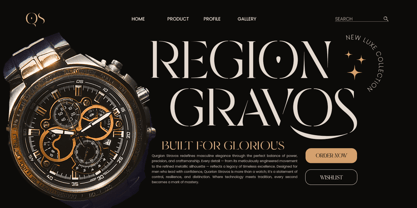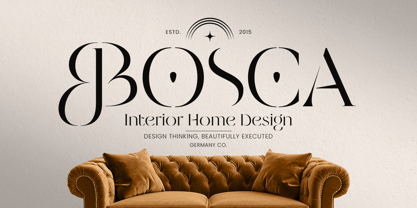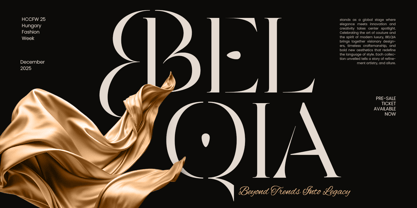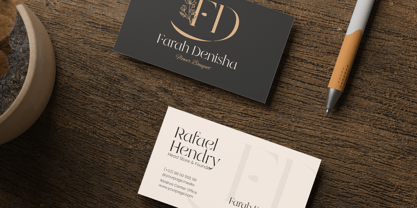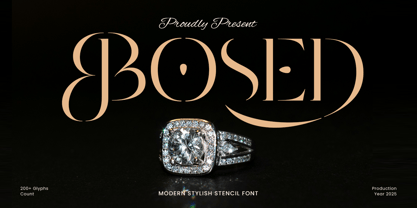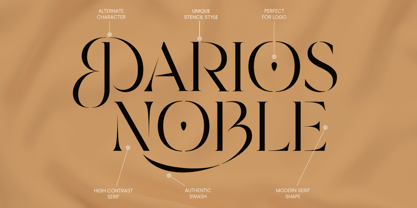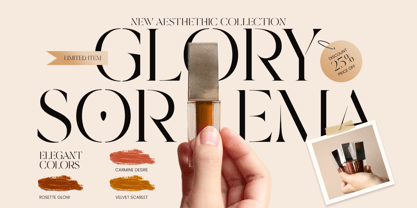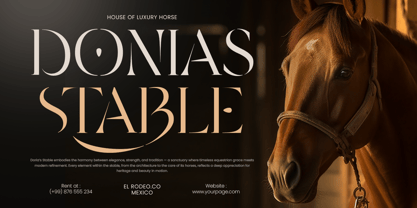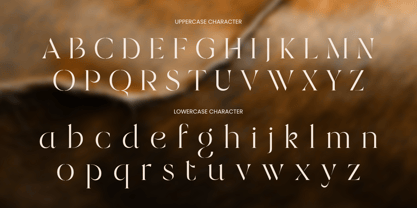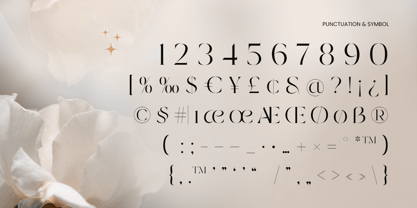
Bosed
Die Schriftfamilie Bosed wurde von Zamroni Hamzah entworfen und von Sensatype Studio veröffentlicht. Bosed enthält 1 Stile. Mehr über diese Familie
BOSED is a modern stylish luxury stencil serif font crafted to deliver a premium look with a bold, distinctive edge. Combining elegant serif structure with precise stencil cut details, BOSED creates a high-fashion, high-impact aesthetic that feels exclusive, confident, and visually sharp.
Ideal for luxury logos, brand identity systems, fashion campaigns, beauty packaging, magazine headlines, and premium product labels, BOSED stands out beautifully across both print and digital applications. The stencil styling adds a unique signature feel—perfect for designers who want a classy serif that doesn’t look generic.
Whether you’re building a boutique brand, upscale editorial layout, fragrance packaging, or a modern luxury poster, BOSED gives your typography a refined statement with standout character.
BOSED – Luxury Stencil Serif Features
• Modern luxury serif with stylish stencil cut details
• Premium look for logos, branding, and upscale identity design
• Perfect for fashion, beauty, editorial, and luxury packaging
• High-impact display presence with refined elegance
• Includes uppercase, lowercase, numerals, and punctuation
• Crisp readability for both digital and print projects
• OpenType features for polished typographic control
Give your brand a bold premium signature with BOSED—where luxury serif elegance meets stencil precision. 🖤✨